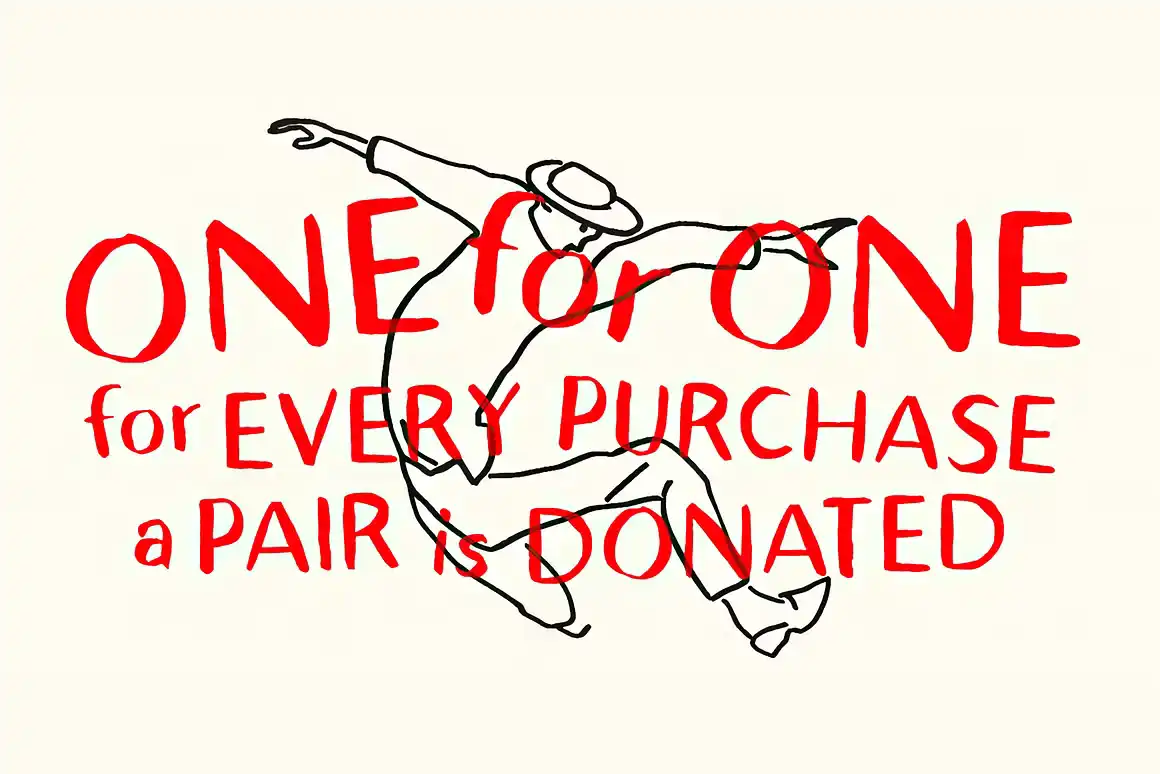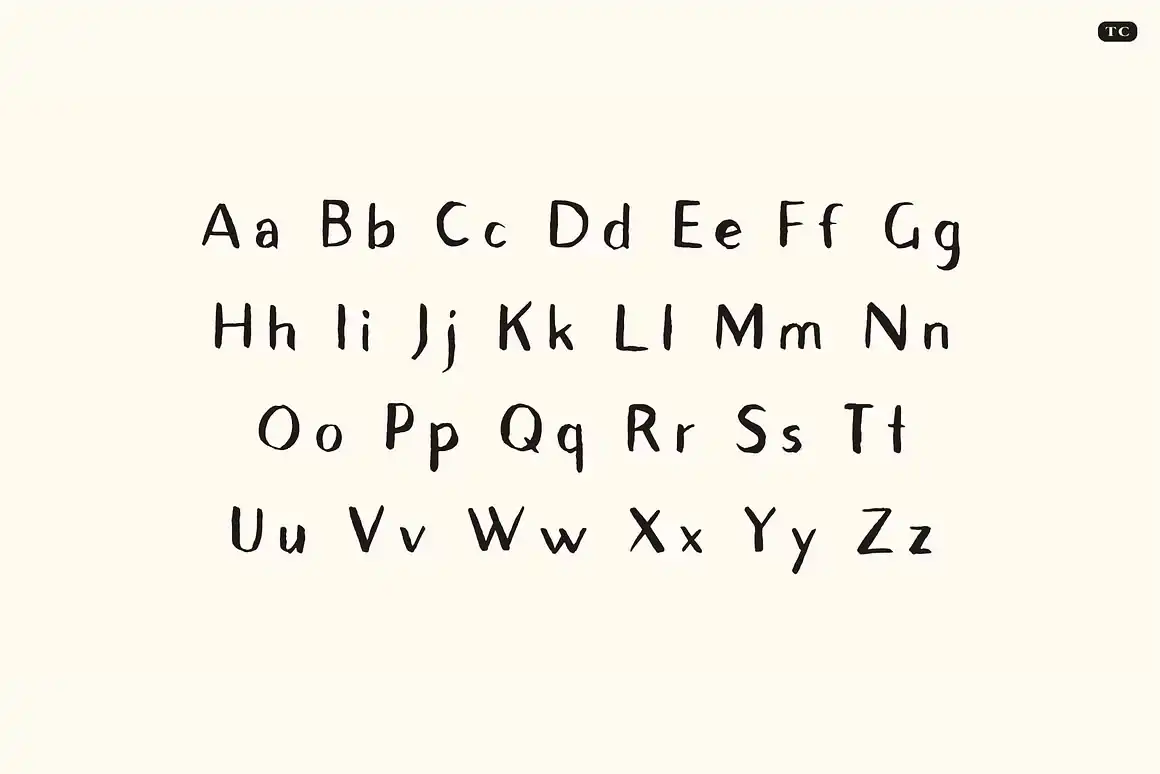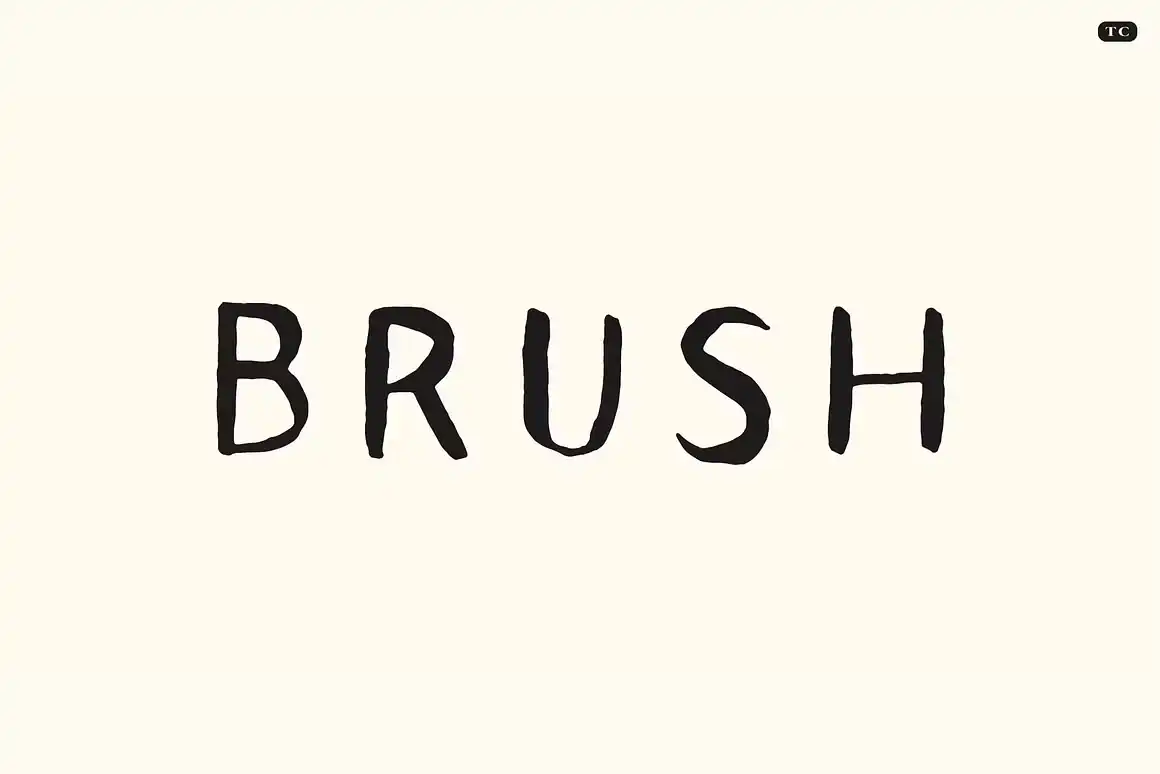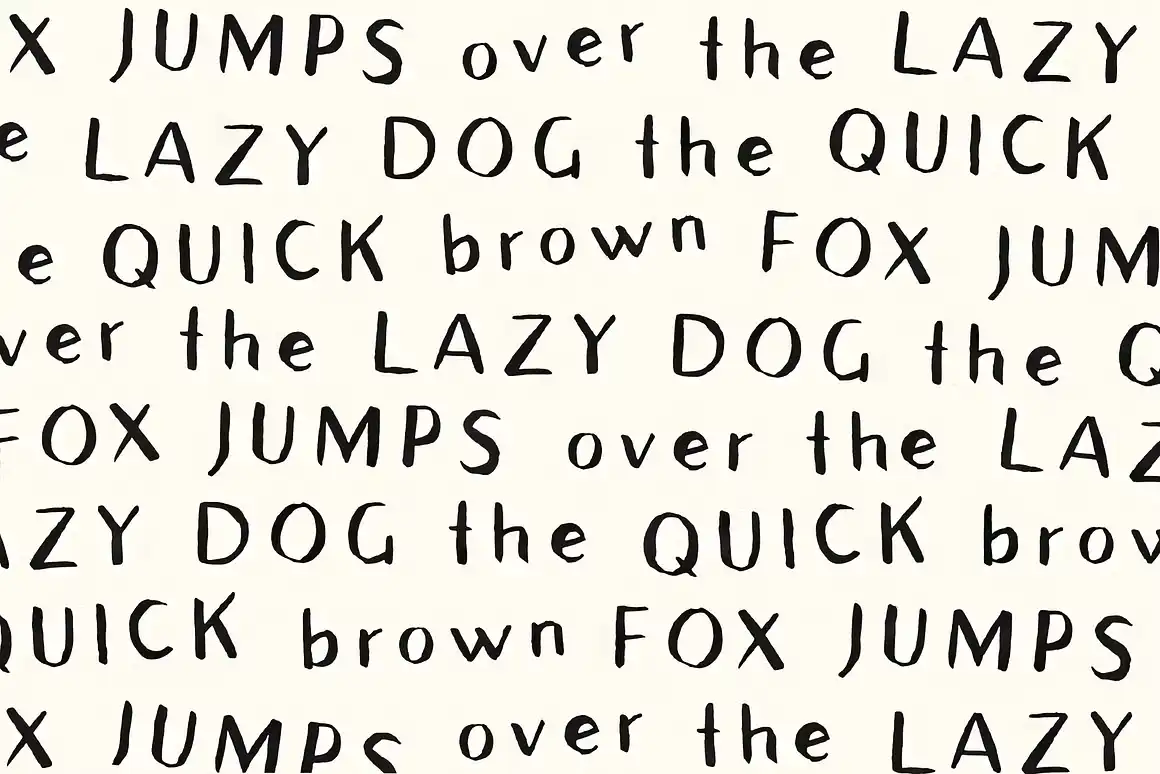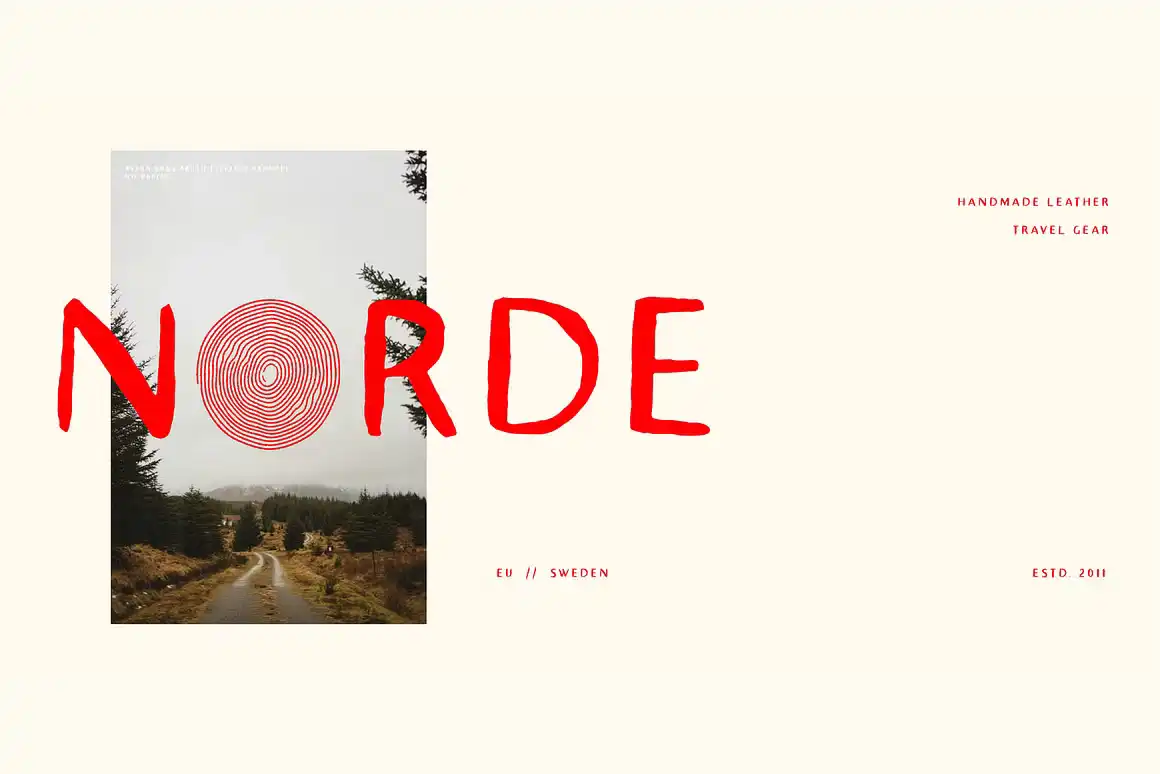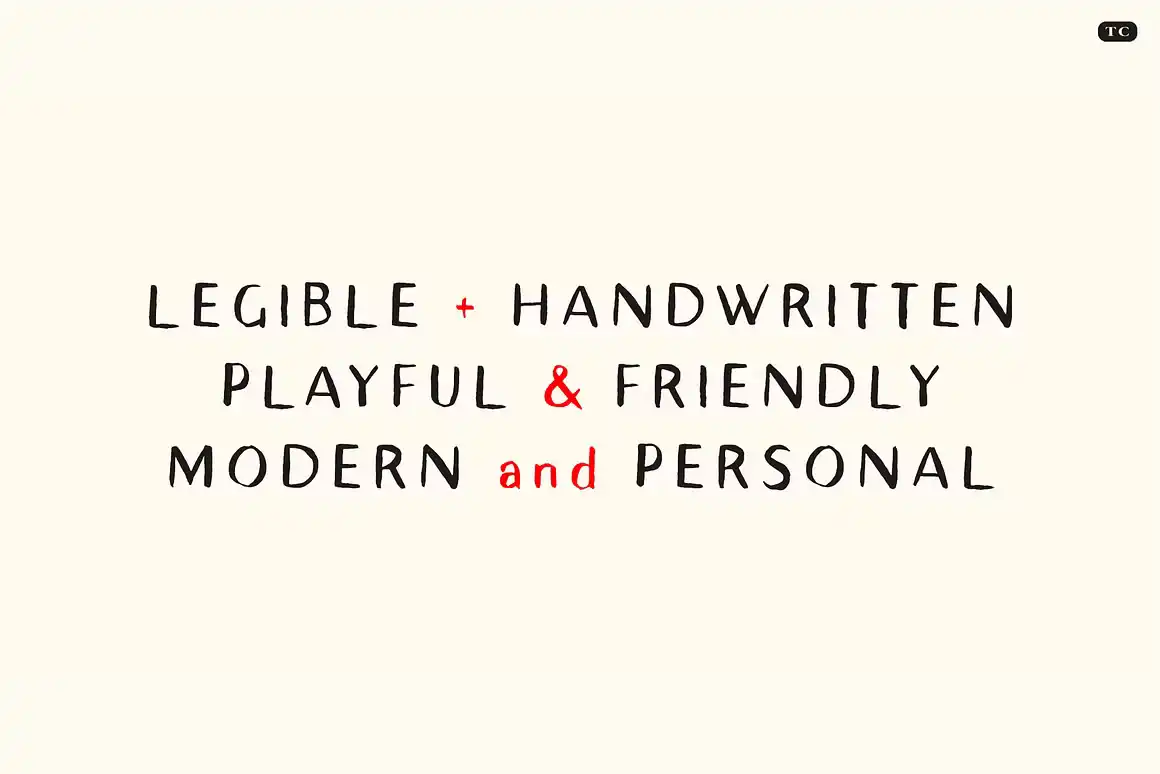
Welcome to the World of Avera Sans Brush – Brushed Font!
Looking for a unique font that brings your designs to life? Avera Sans Brush is a delightful digital download that instantly adds a personal touch to your projects! 🎨 This brushed font embodies the essence of handcrafted artistry, making it perfect for creatives who want to convey warmth and authenticity in their work.
Avera Sans Brush is more than just a font; it’s a vibrant expression of creativity! With its hand-painted strokes, this typeface captures the dynamic spirit of brushwork while maintaining the clarity of its predecessor, Avera Sans. Whether you’re designing a logo, crafting a poster, or creating apparel graphics, this font will surely make your text stand out! ✨
- Handcrafted Feel: Each letter is designed to evoke a sense of artistry, perfect for branding that tells a story.
- Dynamic Forms: The fluidity of the brush strokes adds a lively touch to your designs, making them more engaging.
- Versatile Usage: Ideal for a variety of applications, from t-shirts to product packaging, this font fits seamlessly into any creative project.
This font is a fantastic choice for:
- Graphic designers looking for a friendly and dynamic typeface
- Brand creators who want to add a personal touch to their logos
- Apparel designers aiming for a casual yet expressive look
- Anyone in need of a brush font that speaks of craftsmanship and artistry! 🎉